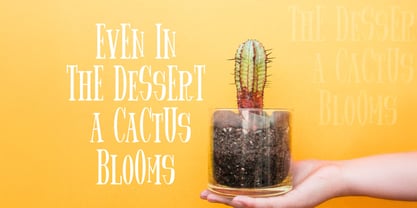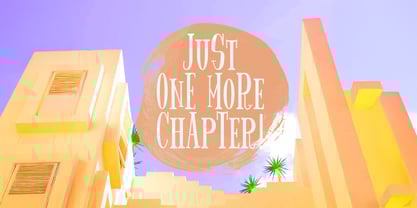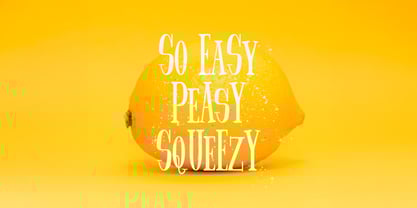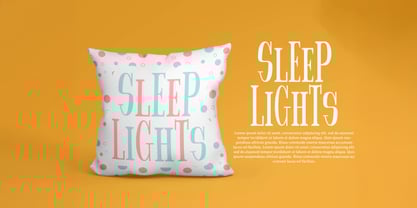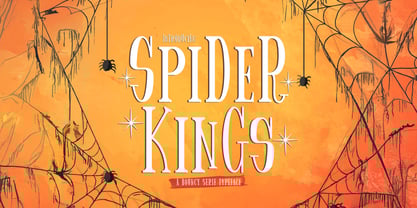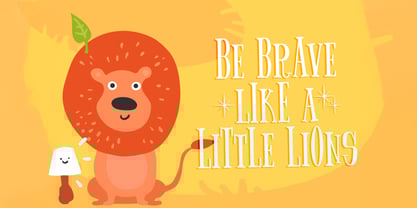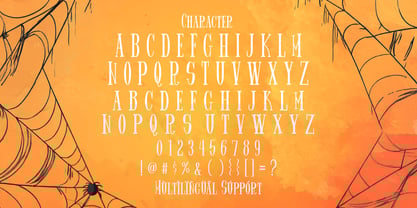
Spider King
Die Schriftfamilie Spider King wurde von Virgiawan Listanto entworfen und von Stringlabs Creative Studio veröffentlicht. Spider King enthält 1 Stile.
Spider King is a captivating and playful serif font that combines boldness with a unique bouncy flair. Its charming curves and distinctive letterforms create a lively, energetic feel, making it perfect for projects that need a touch of whimsy and personality.